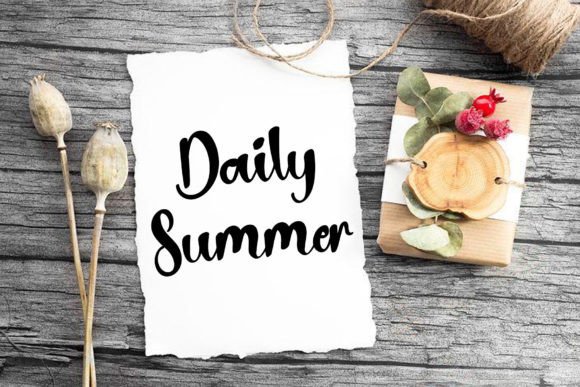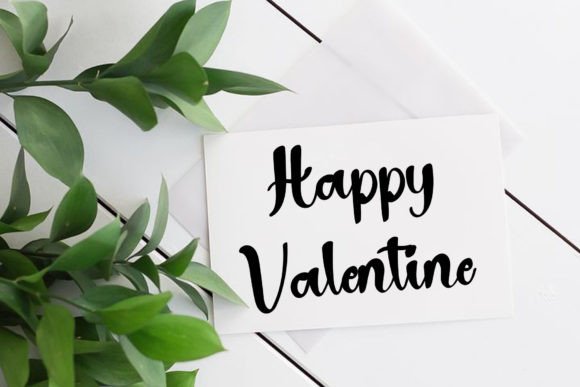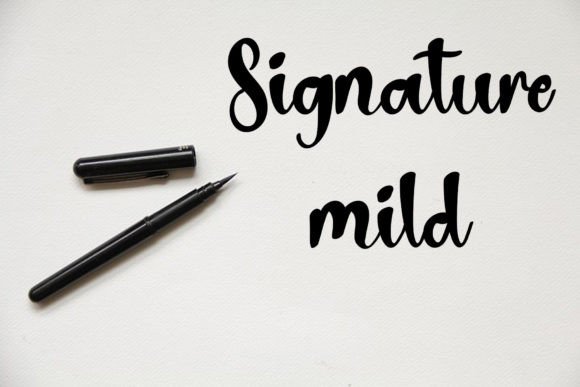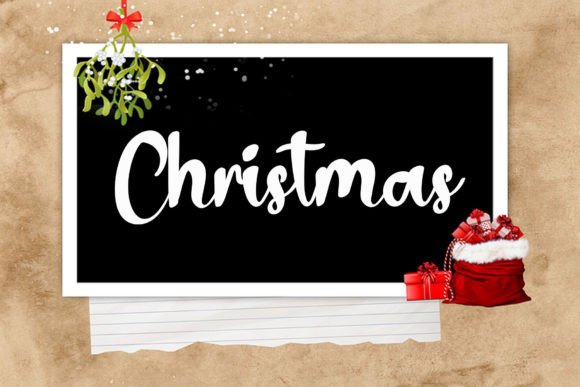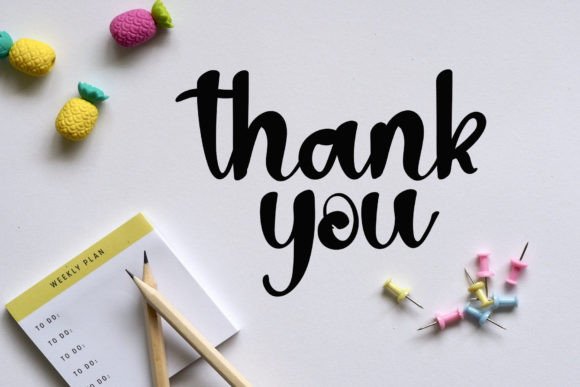
Aquarius Font: Elevate Your Designs with Elegance and Sophistication
Are you on the hunt for a font that exudes elegance, sophistication, and a touch of timeless charm? Look no further than the Aquarius Font, a stunning handwritten font that is sure to capture your heart. With its incredibly distinct and beautiful style, Aquarius is the perfect addition to your favorite projects, allowing you to create spectacular designs that stand out from the crowd.
The Characteristics of Aquarius Font
Aquarius Font is described by its neat and beautiful handwritten style, which is infused with an elegant touch. This font is not just a collection of letters; it’s an experience that brings a sense of luxury and refinement to your designs. Whether you’re working on a branding project, a wedding invitation, or a personal blog, Aquarius Font is versatile enough to adapt to any creative endeavor.
Why Choose Aquarius Font?
There are countless reasons why Aquarius Font should be your go-to choice for your design projects. Here are a few:
- Elegant and Sophisticated: The font’s elegant touch gives your designs a sophisticated look that is hard to achieve with other fonts.
- Distinct and Timeless Style: Aquarius Font boasts a style that is both incredibly distinct and timeless. This means your designs will remain relevant and stylish for years to come.
- Versatility: From digital platforms to print materials, Aquarius Font can be used across various mediums, making it an incredibly versatile addition to your font collection.
- Easy to Read: Despite its elegant and sophisticated look, Aquarius Font remains easy to read, ensuring that your message is communicated effectively.
Whether you’re a professional designer or a crafter who loves to dabble in DIY projects, Aquarius Font is a treasure trove of creative possibilities. Designers will appreciate the font’s ability to elevate branding projects, while crafters can use it to add a personal touch to handmade cards, invitations, and scrapbooking projects.
Using Aquarius Font in Your Projects
- Pair it with Complementary Fonts: For maximum impact, pair Aquarius Font with fonts that complement its elegant style. A simple sans-serif font can create a beautiful contrast.
- Experiment with Colors: While the font itself is the star of the show, experimenting with different colors can help you find the perfect match for your design.
- Play with Sizes: Don’t be afraid to vary the font size to create visual interest. Larger sizes can be used for headings, while smaller sizes are perfect for body text.
Aquarius Font is more than just a font; it’s a design statement. Its elegant touch, distinct style, and versatility make it an invaluable asset for designers and crafters alike. By incorporating Aquarius Font into your projects, you’re not just adding words to a page; you’re crafting an experience that resonates with elegance and sophistication. So why wait? Fall in love with Aquarius Font today and unlock a world of creative possibilities!
Key Features of Aquarius Font:
- Neat and beautiful handwritten style
- Elegant touch
- Incredibly distinct and timeless style
- Perfect for a wide range of projects
- Easy to read
- Versatile across various mediums
Discover the beauty of Aquarius Font and let it be the cornerstone of your next design project. Its unique charm and elegance are sure to leave a lasting impression on your audience.